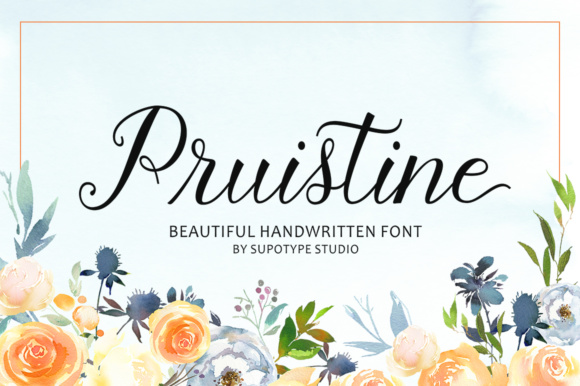
Journey into the realm of Pruistine Script, a font of exquisite beauty and timeless elegance. Crafted with meticulous care by the artisans at supotype, this script font embodies the essence of romance and sophistication. Let your imagination soar as you explore the boundless possibilities that await you within the graceful curves and delicate flourishes of Pruistine Script.
Immerse yourself in a world of enchantment, where words dance and stories come alive. Pruistine Script is the perfect companion for those seeking to capture the magic of love, friendship, and life's precious moments. Its delicate strokes and flowing lines add a touch of charm and whimsy to any project, whether it be a heartfelt letter, an intimate journal entry, or a captivating work of art.
With Pruistine Script, transform your digital creations into masterpieces that captivate and inspire. Its versatile nature allows you to effortlessly add a touch of elegance to logos, branding, invitations, and social media posts. Let your designs blossom with the timeless beauty of Pruistine Script, leaving an unforgettable impression on all who behold it.
Unleash your creativity and embark on a journey of self-expression with Pruistine Script. Let the world bask in the radiant glow of your words, adorned with the enchanting allure of this extraordinary font. Embrace the power of Pruistine Script and unlock the gateway to a world where imagination reigns supreme.